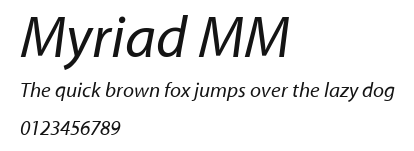
Myriad MM Preview
• Font Name: Myriad MM
• Full Font Name: Myriad MM Italic
About Myriad MM.ttf
Myriad MM.ttf is a modern, elegant sans-serif font designed for ultimate readability and visual harmony. Perfect for branding, headlines, web design, and print materials.